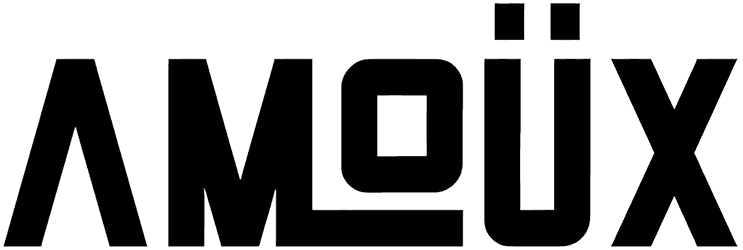
Amoux Font
Today’s DJ font is the perfect font for gaming console introductions. Amoux font is designed with big digital characters and can be used for any digital texts or headlines, sci-fi and futuristic movie titles, and sports news. It will convey a kind of powerful vibe and give a cool modern look to your texts.
The font contains two alphabetical sets, but some of the characters only have their capital makeover in both sets.